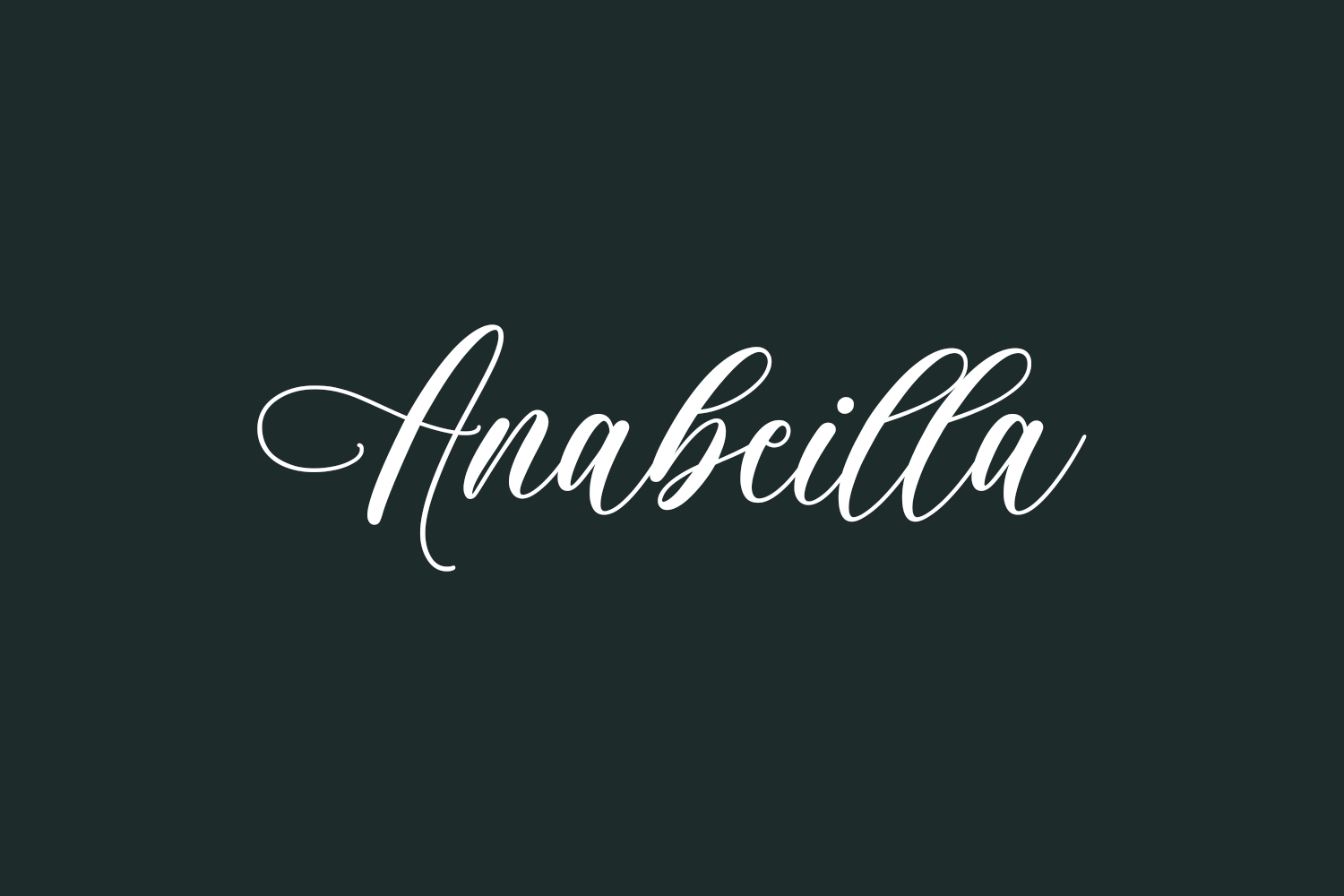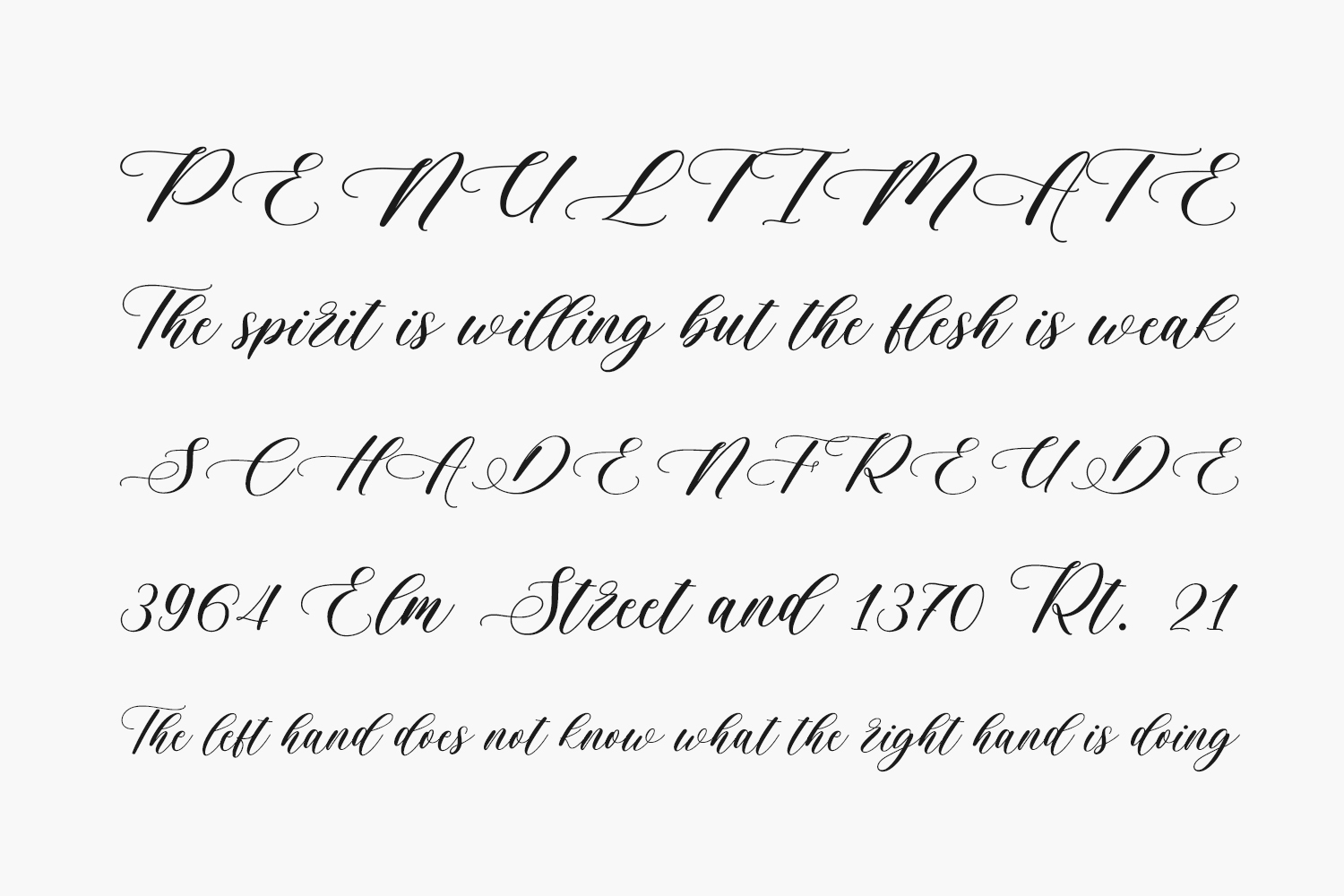
Anabeilla Free Font is a lovely script font featuring charming, playful characters that seem to dance along the baseline. Anabeilla Free Font is free for personal use only. Please purchase the full version for commercial use.
Designed by Makashi